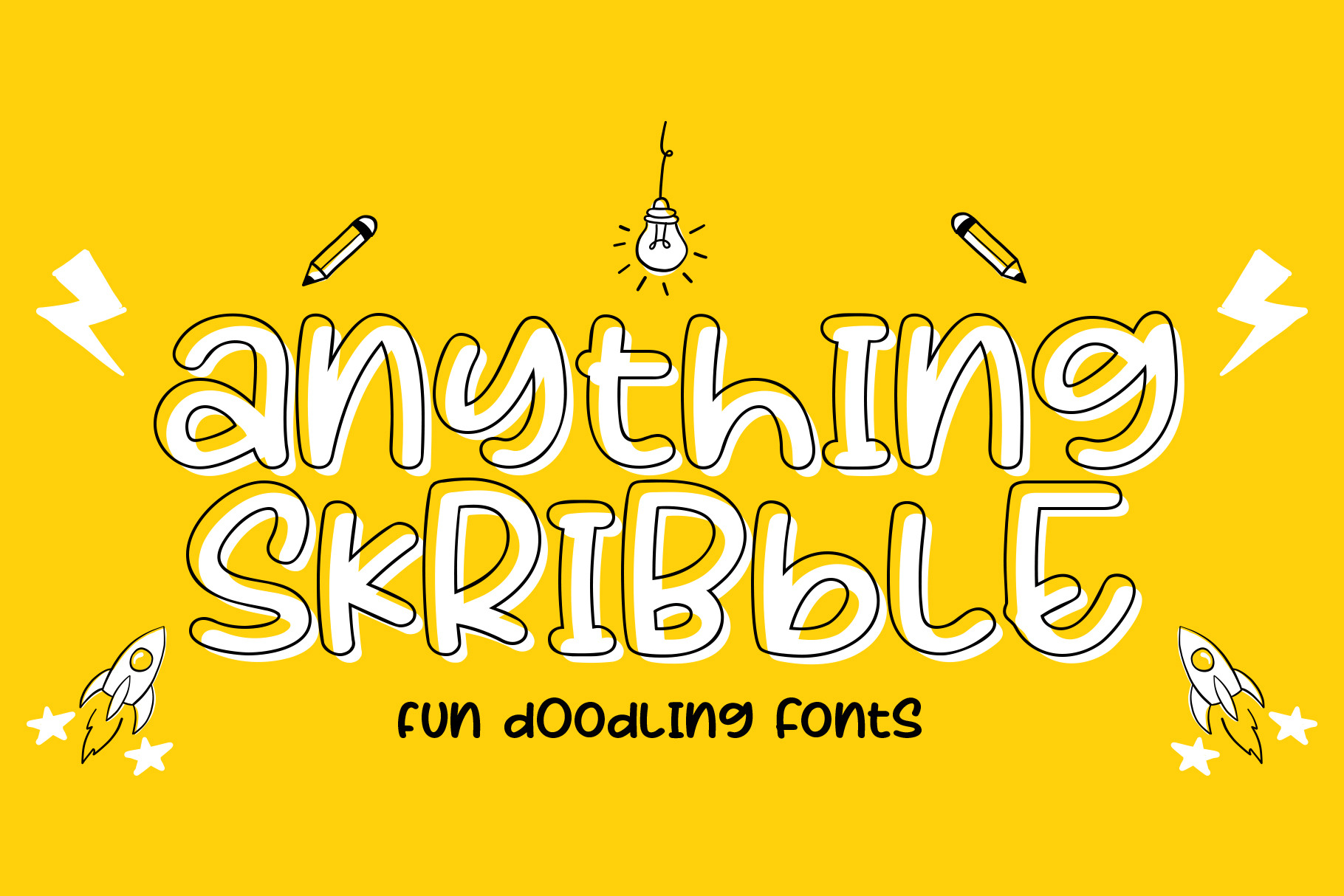
Anything Scribble Fonts
Hello, Introducing the new font Anything Skribble
the font was very cute. Match for your doodling, Scribble motion and Etc.
Good readability, good contour.